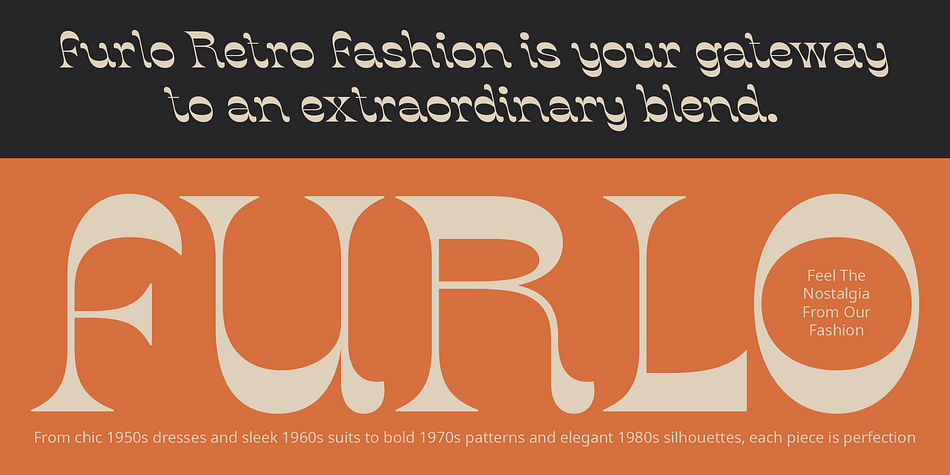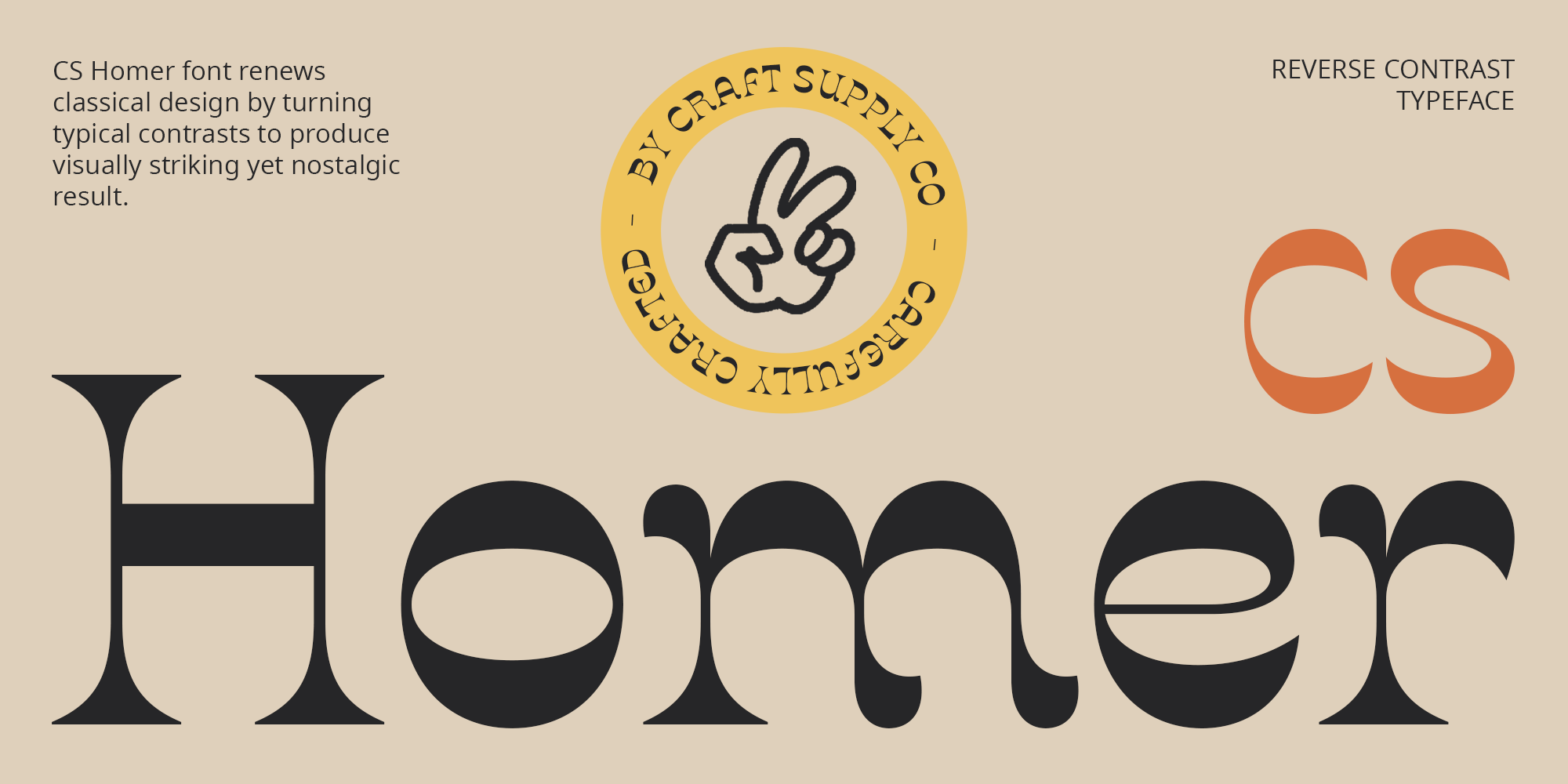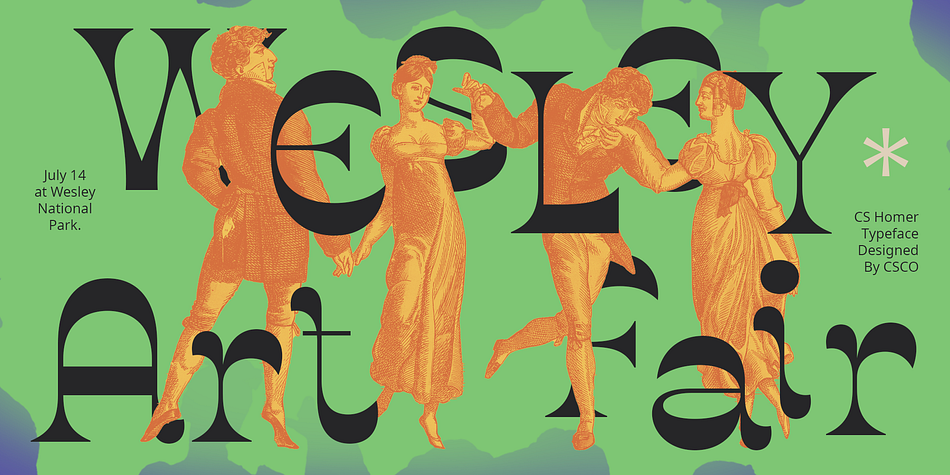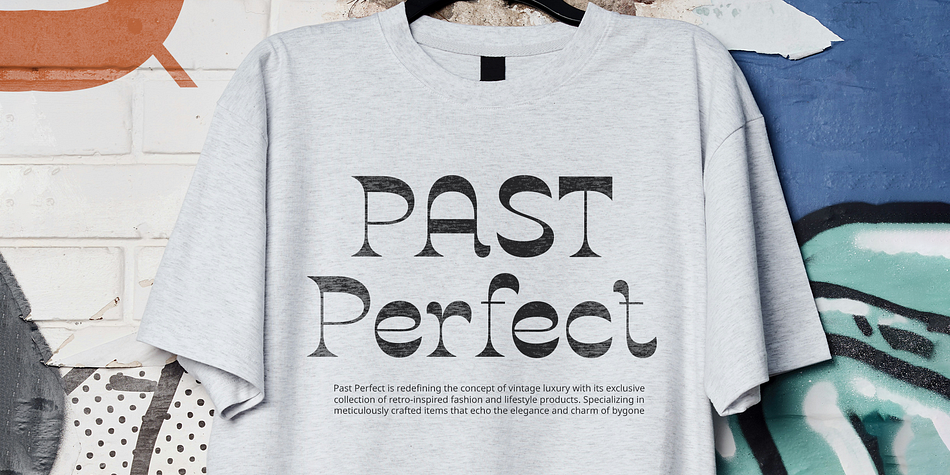
CS Homer
CS Homer is a retro font family. This typeface has three styles and was published by Craft Supply Co.
CS Homer: Reverse Contrast Display Font
Intriguing and Unique Style
CS Homer is a display cs font that stands out with its reverse contrast design, where the traditional weight distribution of thick and thin strokes is intriguingly inverted. This distinctive feature evokes typographic aesthetics from past eras, giving the font a strong retro feel and a touch of vintage charm.
Blending Classic Elegance with Modern Creativity
The unique and artistic style of CS Homer makes it perfect for design projects that aim to blend classic elegance with modern creativity. Its reverse contrast design creates a captivating and characterful appearance, making your projects stand out with an eye-catching and memorable look.
Ideal for Various Creative Projects
CS Homer is ideal for posters, branding, and packaging, offering a visually striking and engaging impression. Its blend of vintage aesthetics and modern design elements ensures that your projects convey a sense of uniqueness and artistic flair, making them truly unforgettable.
Captivating and Characterful Design
Bring a touch of retro elegance and artistic creativity to your designs with CS Homer. This reverse contrast display font offers a captivating and characterful look, perfect for creating impactful visuals that stand out with a blend of classic charm and contemporary style.